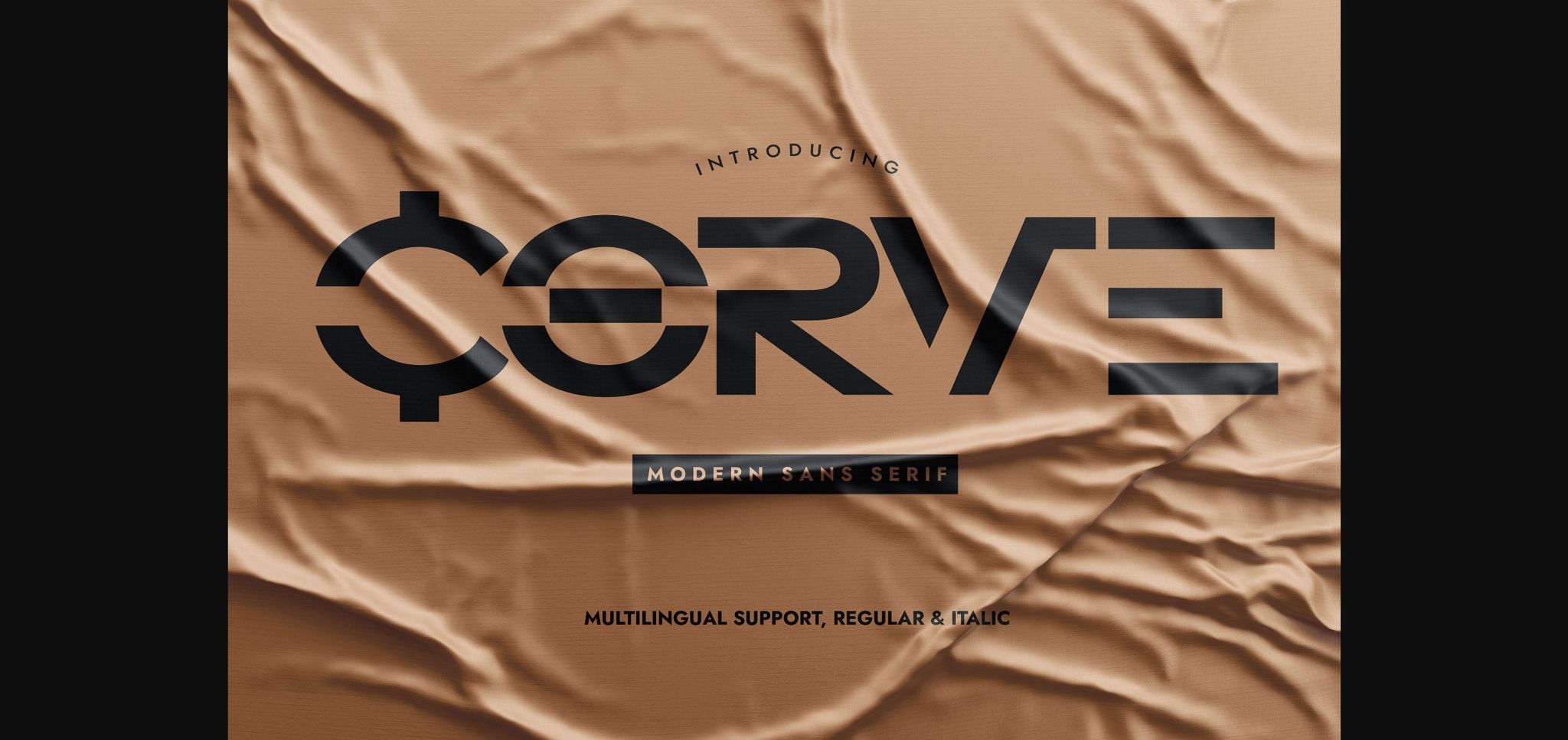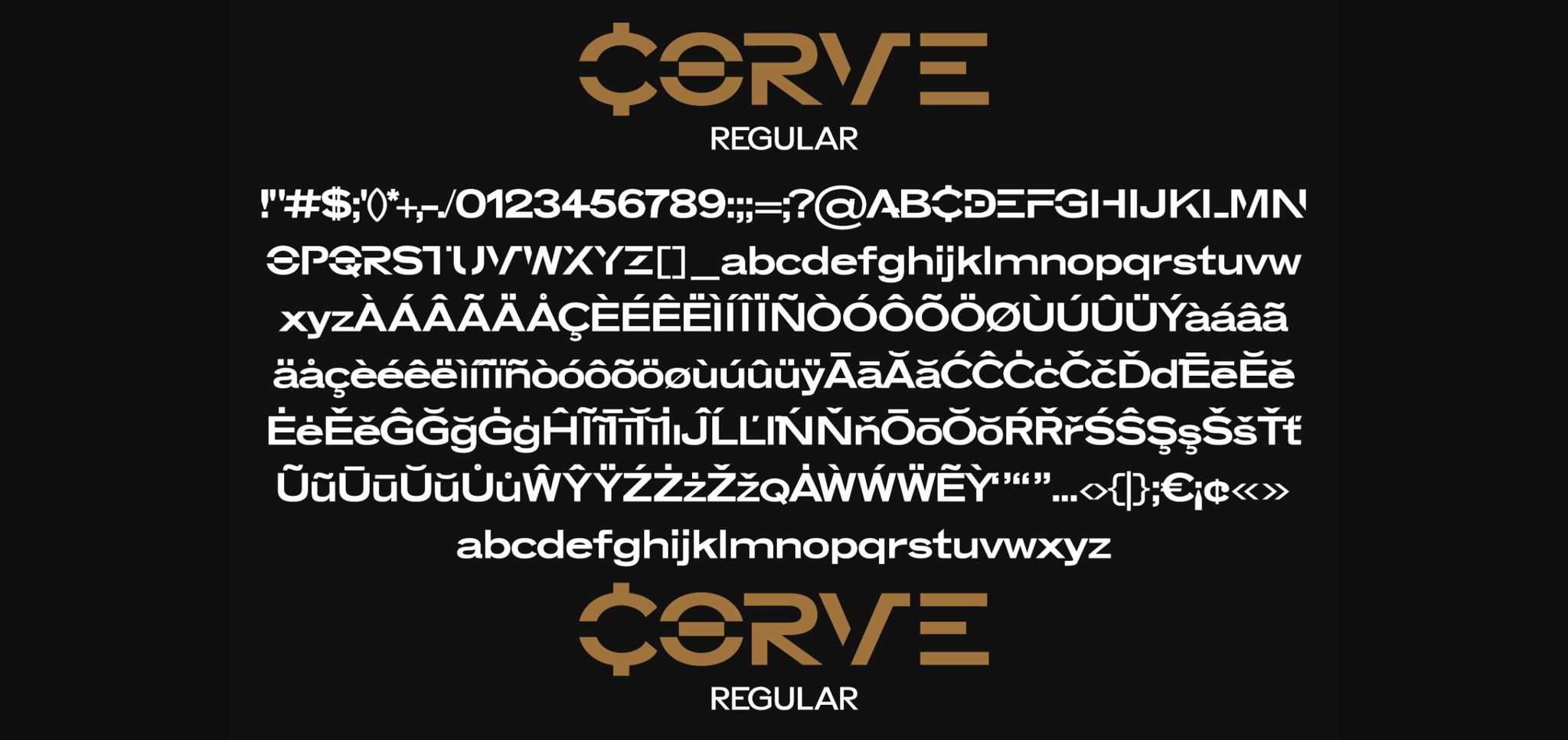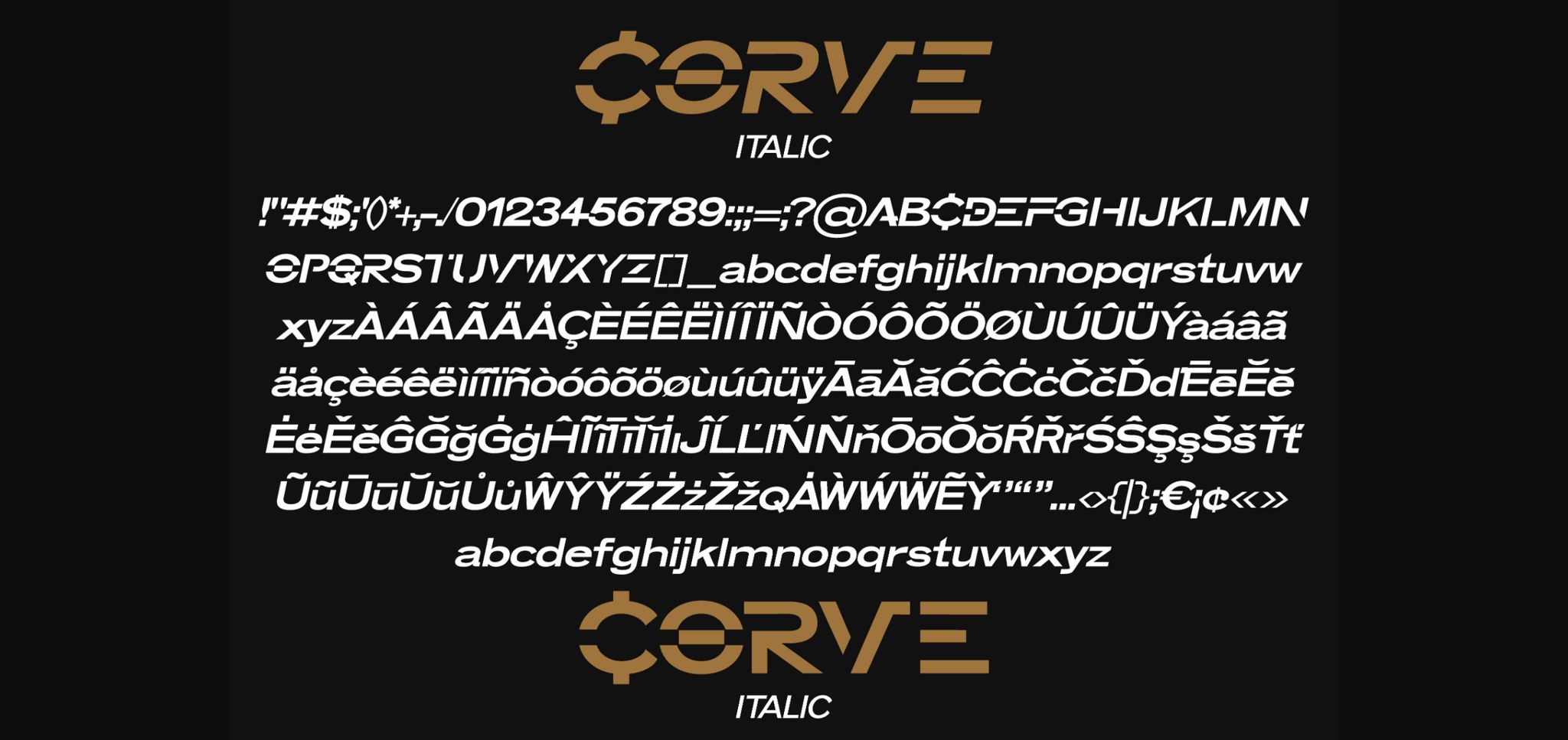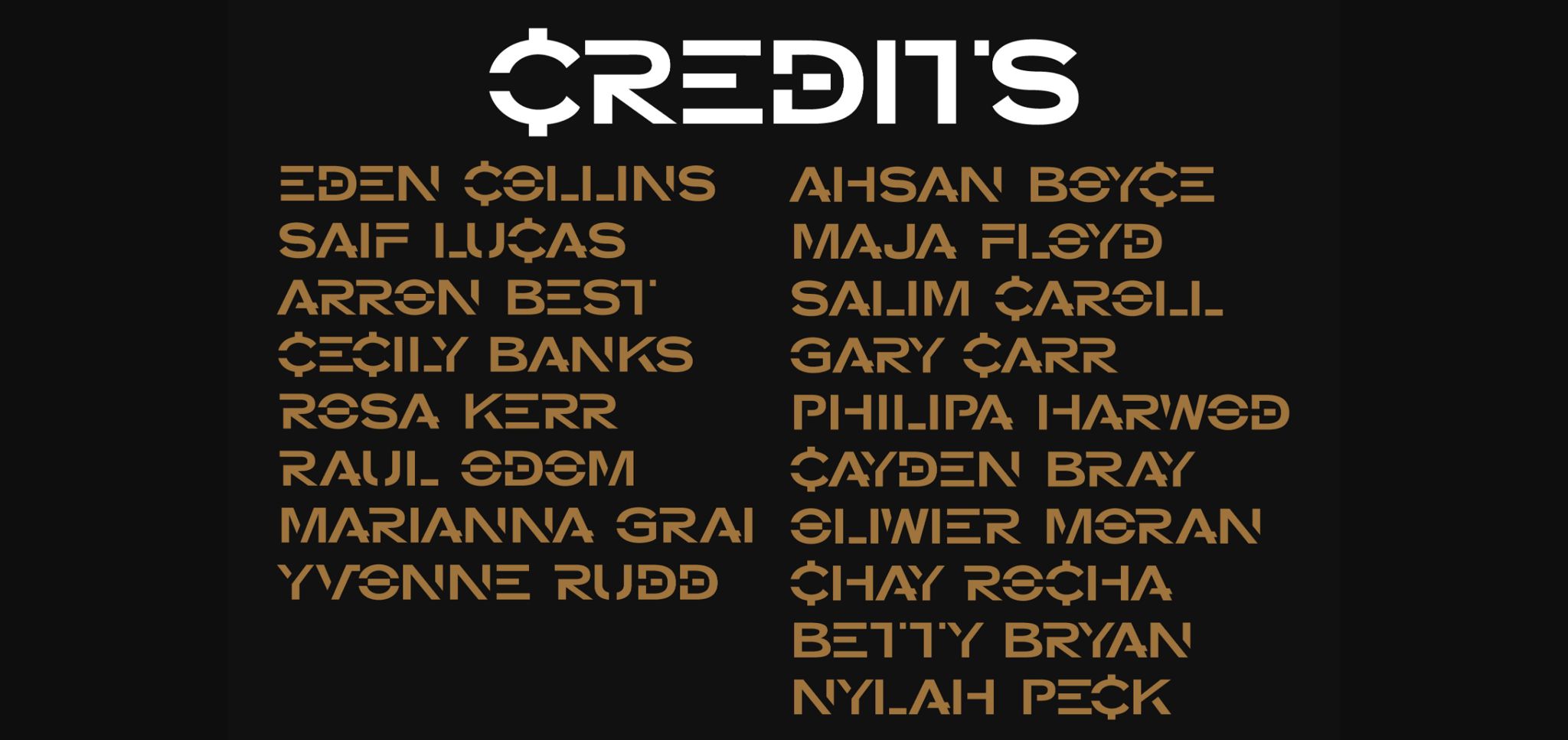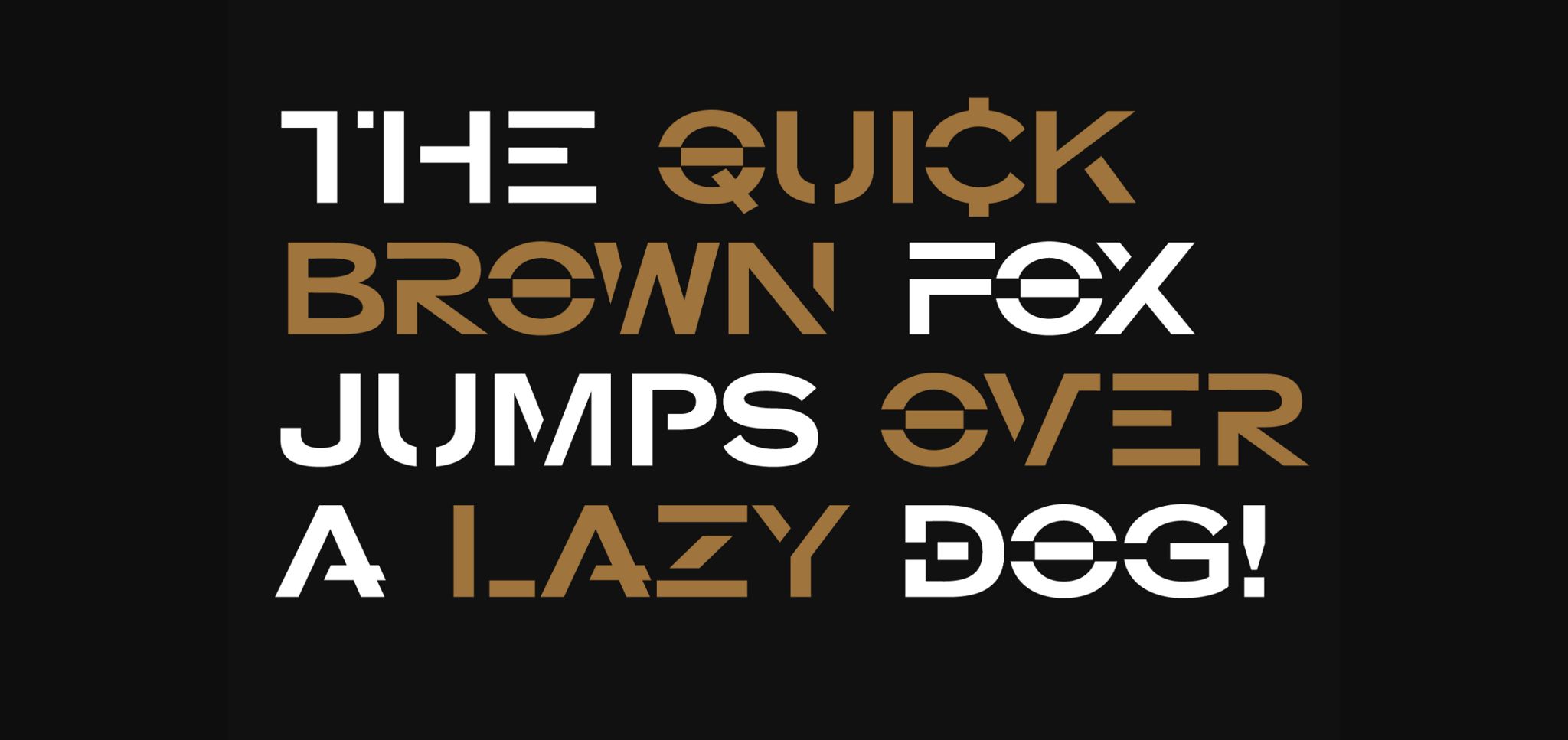
About Corve Font
Corve is a bold modern sans serif font perfect for packaging design, logo design, branding, crafting, web design, posters, magazine covers, and many more. Use Corve in your creations, and you will notice how it is able to effortlessly make them stand out.